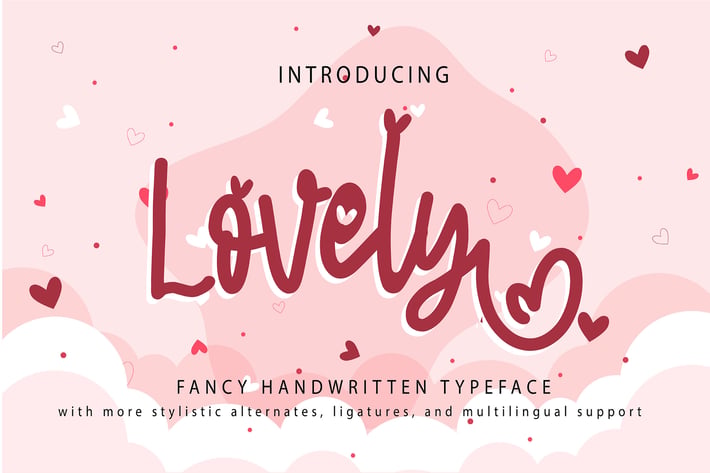
Lovely | Fancy Handwritten Typeface
Lovely | Fancy Handwritten Typeface with a calligraphy style, So beautiful on invitation like greeting cards, branding materials, business cards, quotes, posters, and more!